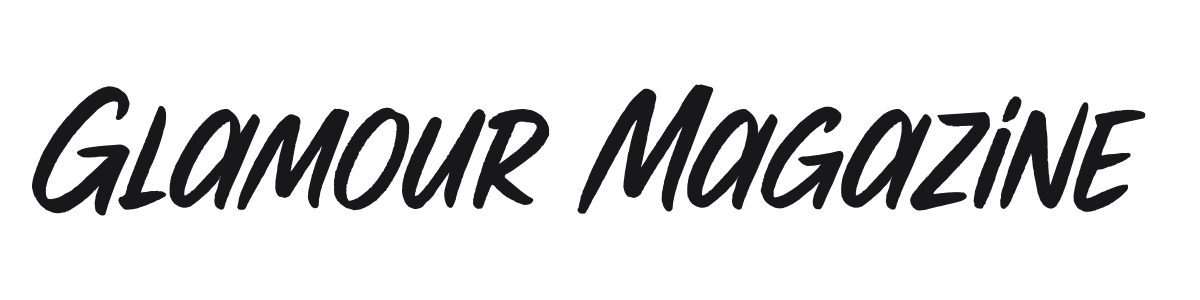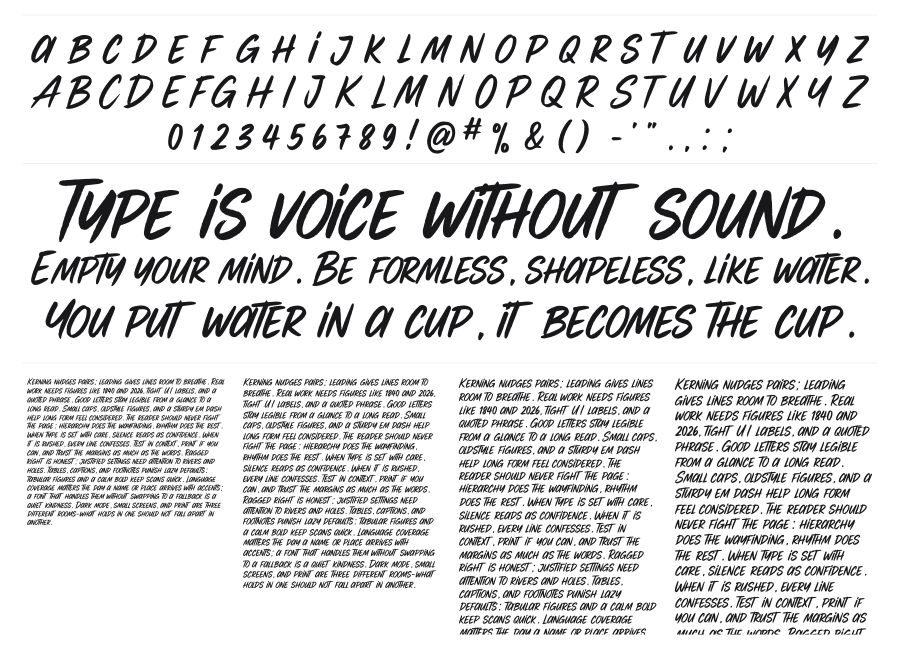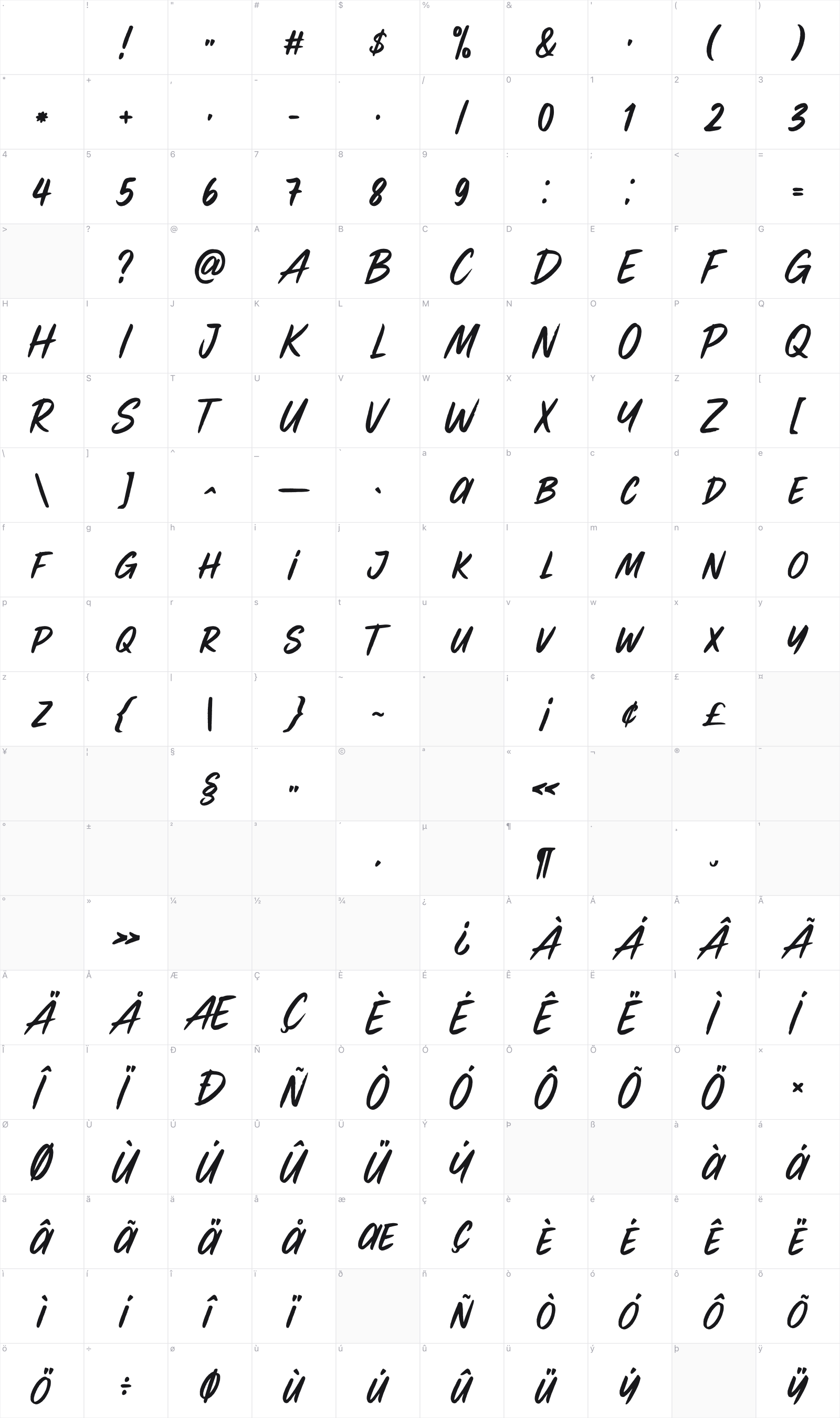
Glamour Magazine
Glamour Magazine is a bold brush script with heavy ink texture and a steep forward lean. The rough bristle strokes and spontaneous hand-lettered quality give it real energy at large sizes. It pulls from street-art lettering traditions while landing comfortably in fashion and lifestyle contexts.